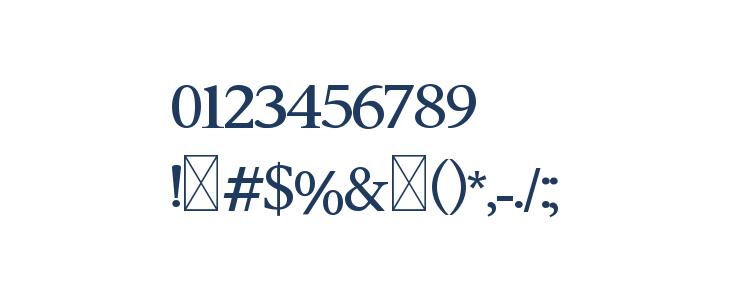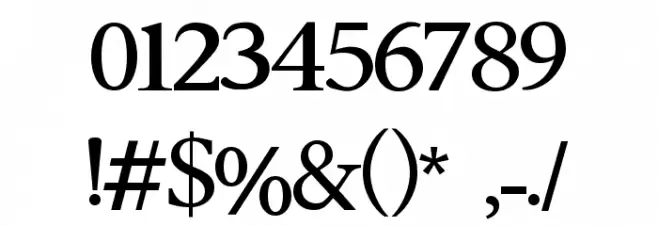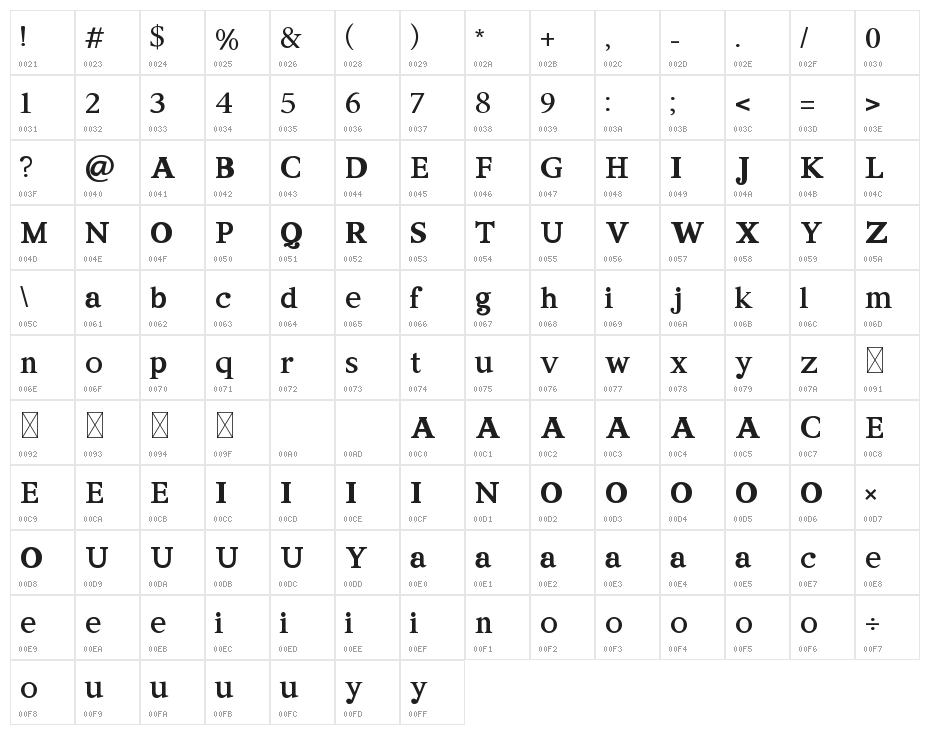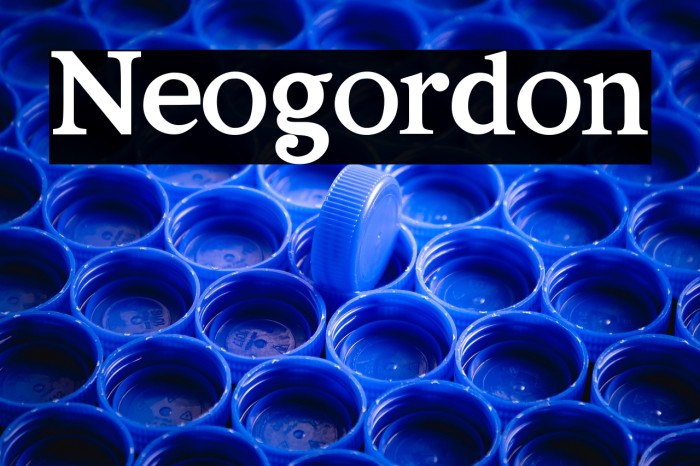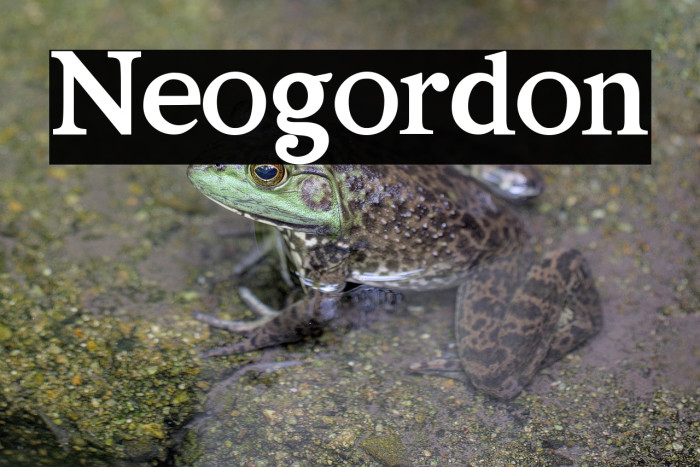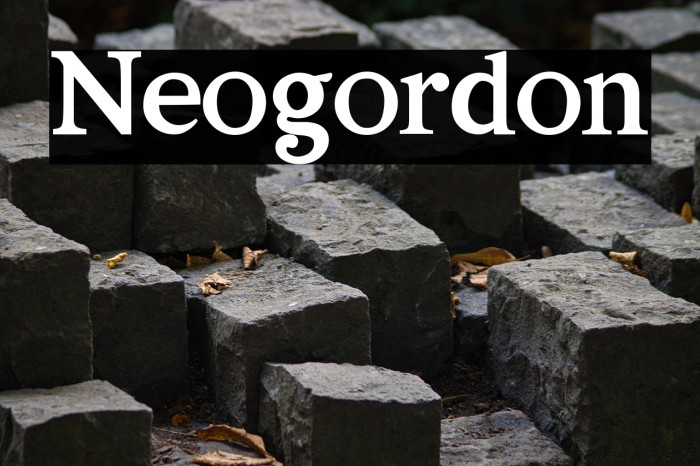
Neogordon Font
Neogordon Description
This font exhibits a classic serif style with strong, bold strokes and a traditional appearance. The uppercase letters are well-defined with prominent serifs, giving a sense of authority and elegance. The lowercase letters maintain a consistent style, with smooth curves and balanced proportions. The numerals are clear and legible, suitable for both formal and informal settings. Special characters are included, providing versatility for various design needs. The overall design is timeless, making it suitable for a wide range of applications.
| Proposed Projects | Ideal for editorial design, book covers, formal invitations, and branding projects requiring a traditional and authoritative look. |